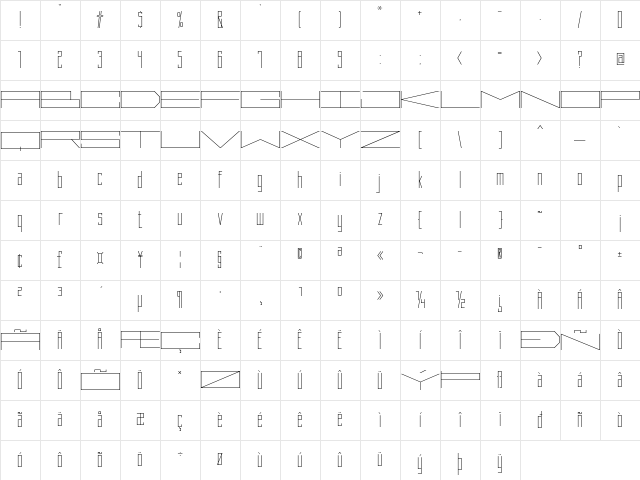
Why Square IN LT Std Ultra Light
Style: Ultra Light
Designer: Zoran Kostic
Design Context for Why Square IN LT Std
Why Square IN LT Std is a composed and adaptable typeface that performs quietly and consistently across a wide range of design contexts. Its slender proportions lend an understated elegance to any composition.